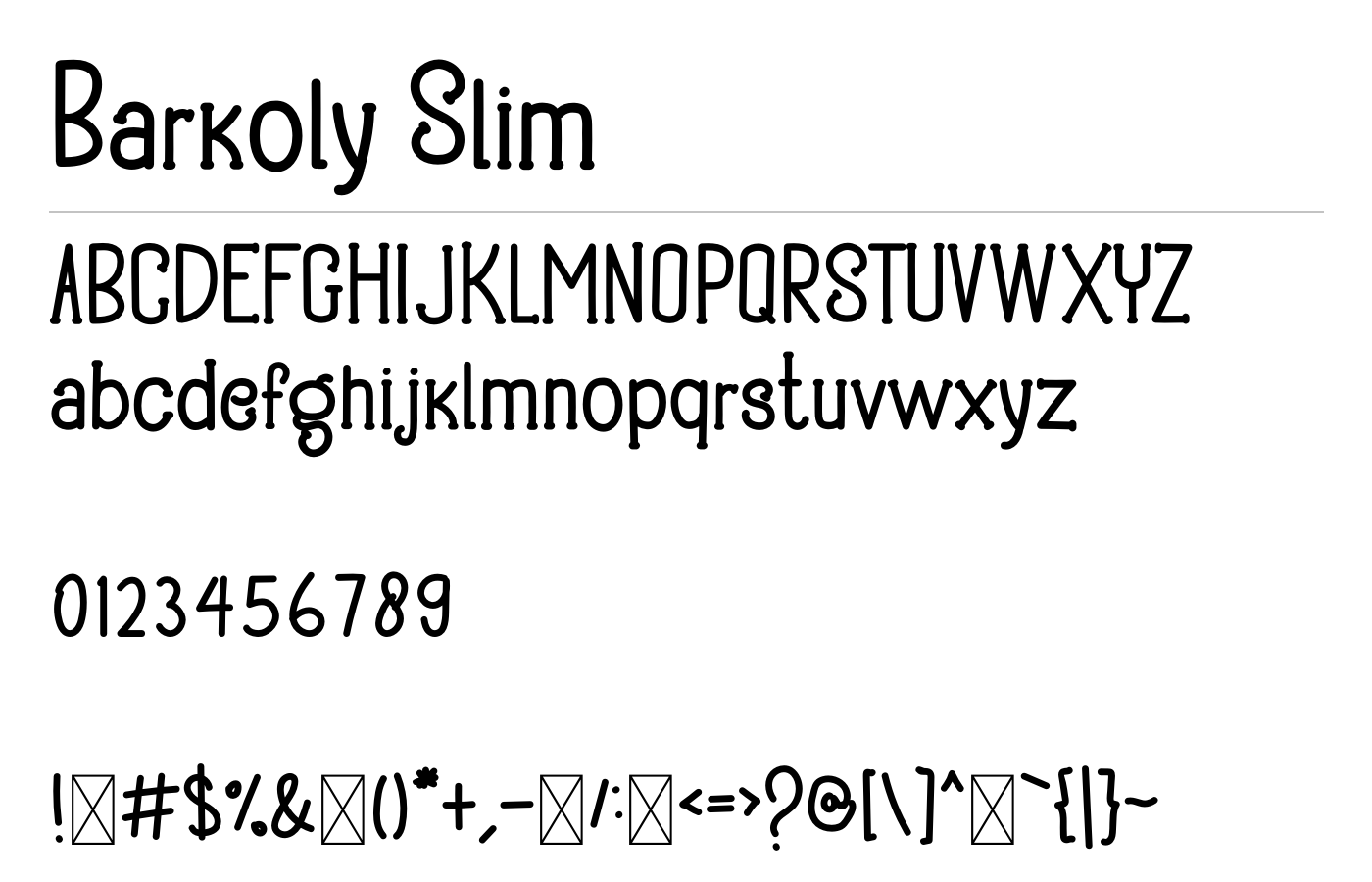
Barkoly Slim is a quirky, narrow sans serif font with playful, hand-drawn qualities that give it a friendly and approachable feel. Its tall, slightly irregular letterforms and subtle curves make it ideal for creative, casual branding, editorial headlines, and projects that seek a warm, unique character without losing readability. This font works especially well in designs that aim to stand out with personality while maintaining a clean, slender appearance.
Barkoly Font
About Barkoly Font